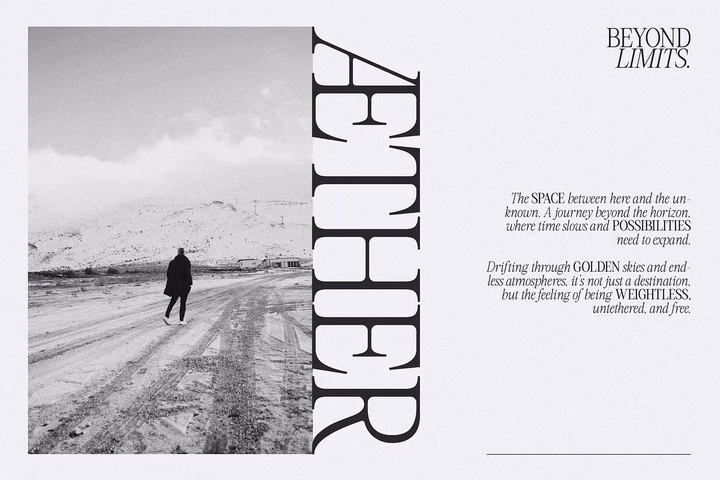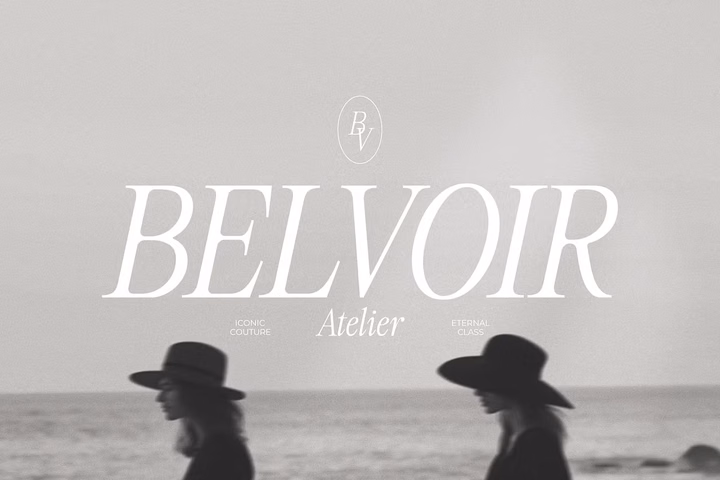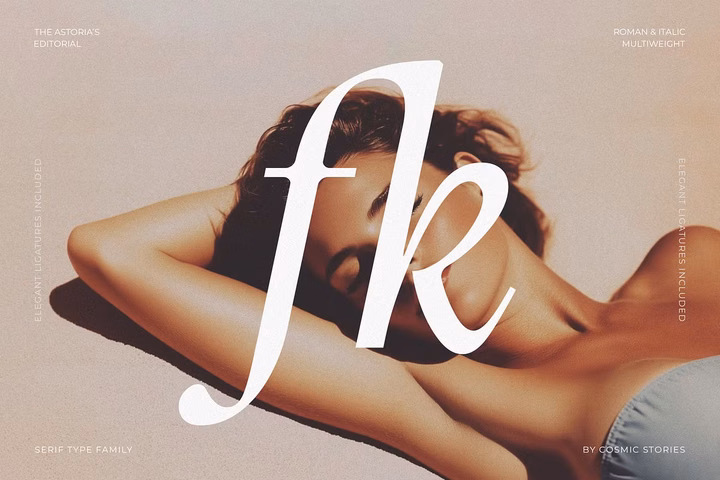
A truly versatile editorial serif that effortless blends retro charm with a modern touch. The Astoria’s Editorial carries the elegance of advertisement typography with a bold retro soul. Inspired by classic publishing and vintage signage, this typeface blends nostalgic charm with a contemporary edge, making it an essential tool for those who crave both timeless sophistication and modern versatility.
With with a total of 14 styles (7 finely crafted weights and matching italics), and refined ligatures, this font moves effortlessly between editorial layouts, brand identities, luxury packaging, and expressive headlines. Whether you’re designing a heritage-inspired logo or a sleek magazine spread, The Astoria’s Editorial delivers impact with a lot of personality.
What makes it stand out?
- A retro-modern fusion with a unique voice
- 7 weights + italics (14 total different fonts)
- Elegant ligatures